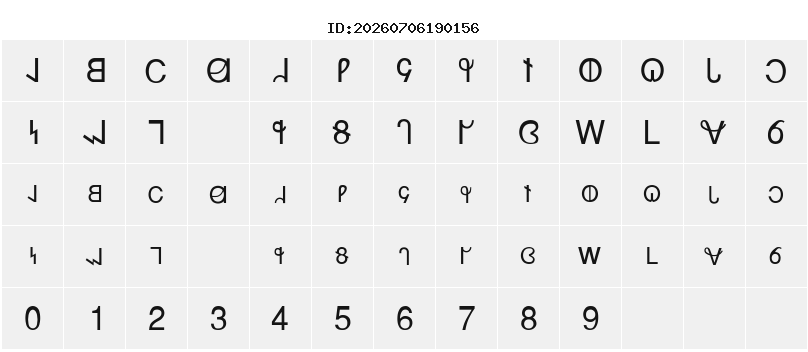
Desert.ttf is a modern, elegant sans-serif font designed for ultimate readability and visual harmony. Perfect for branding, headlines, web design, and print materials.